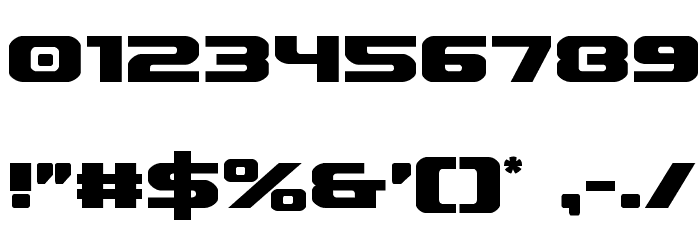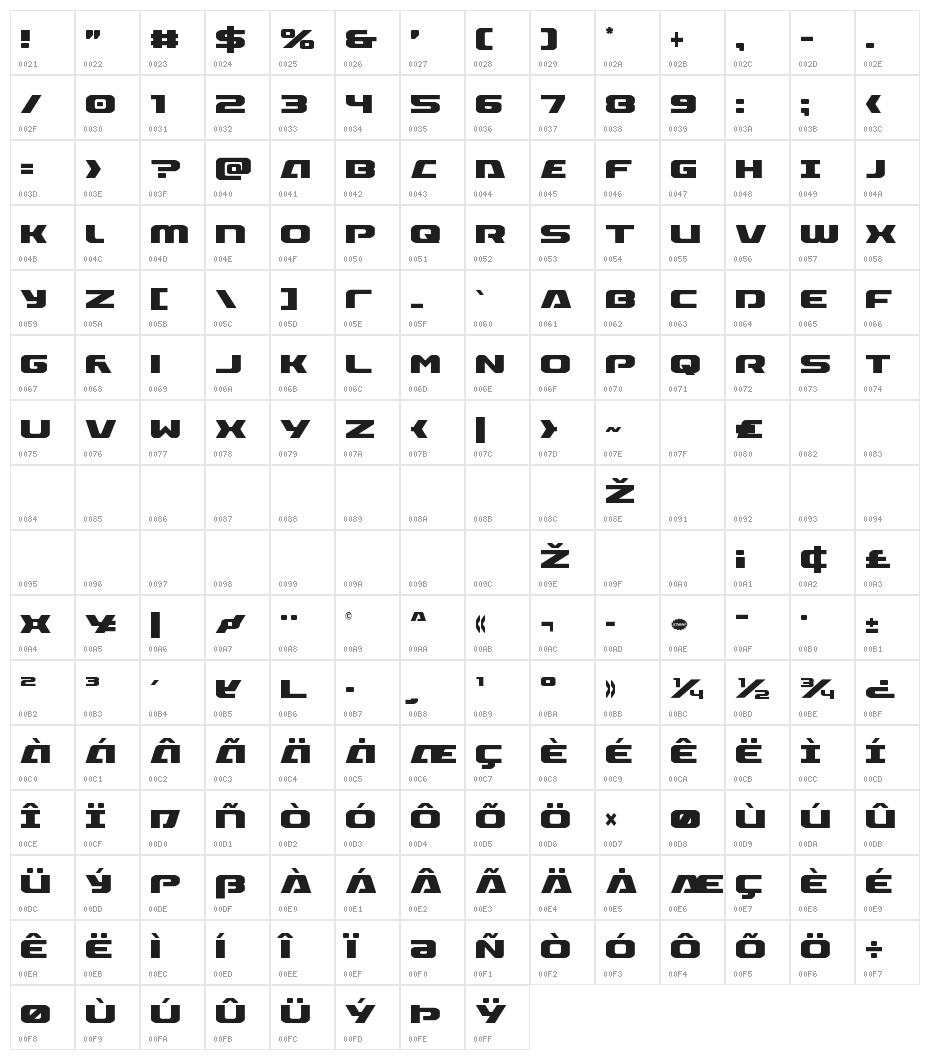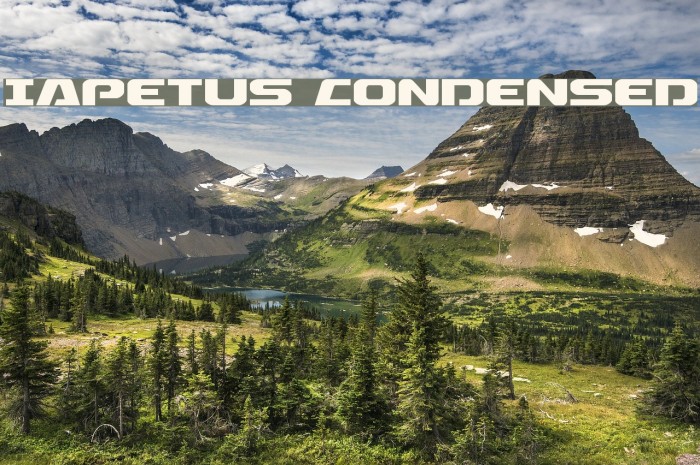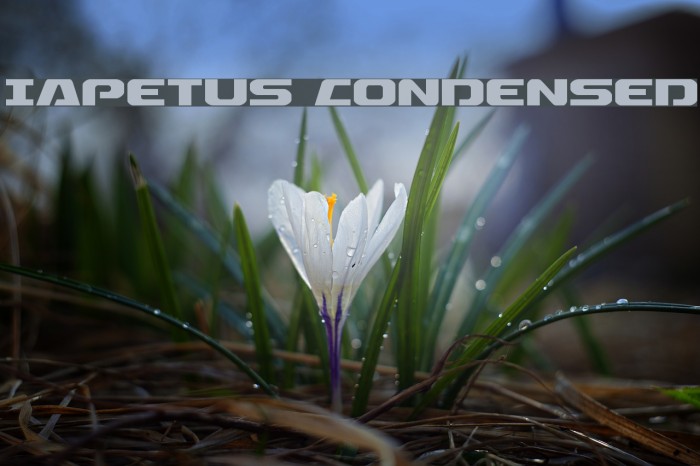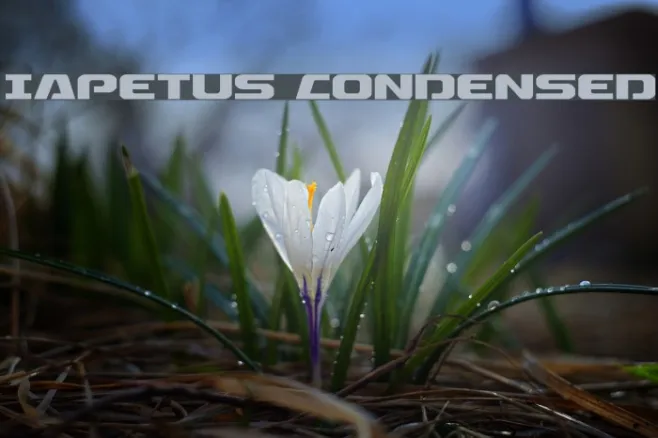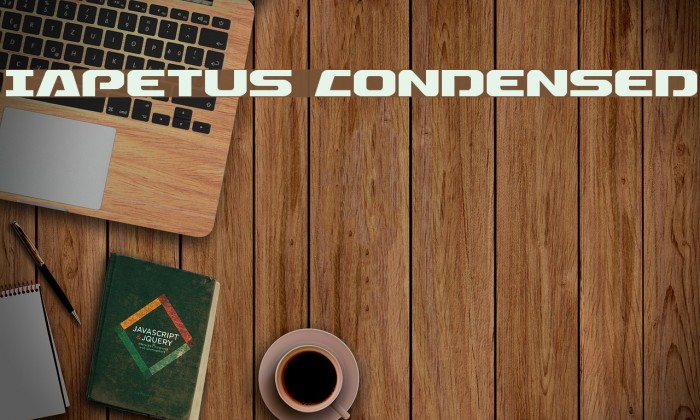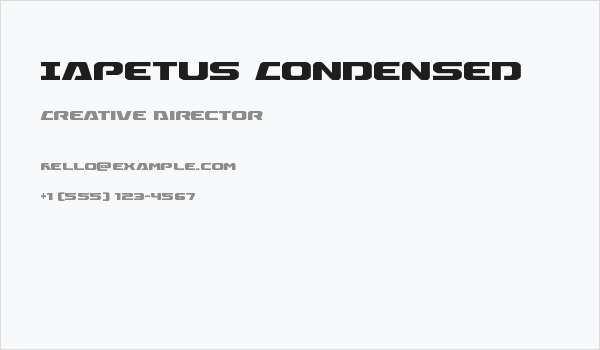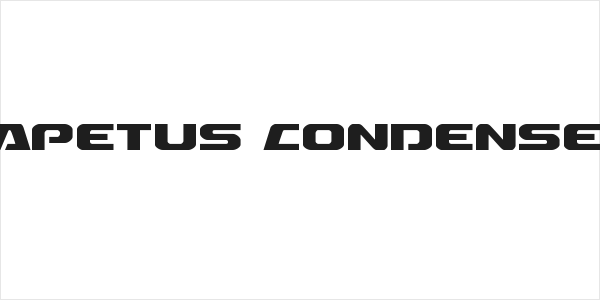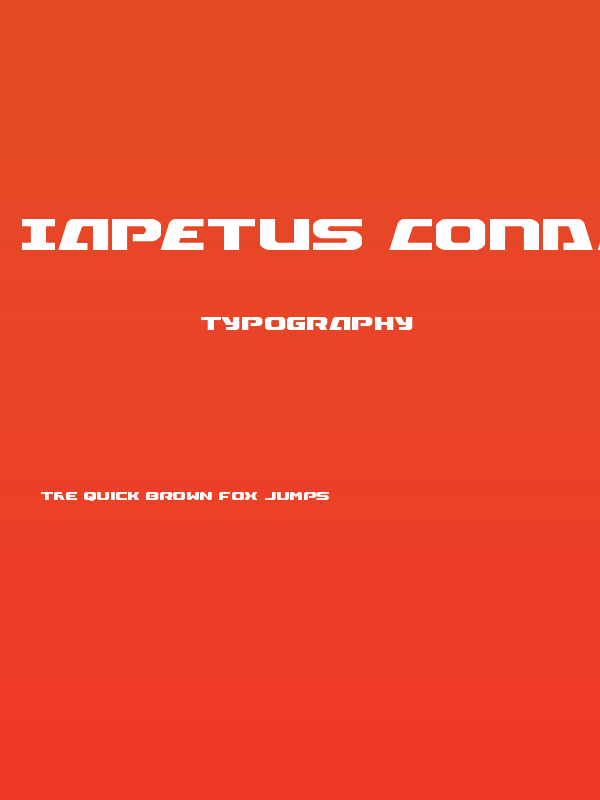
Iapetus Condensed Font
Iapetus Condensed Description
This font features a bold, futuristic design with a condensed structure. The characters are sharply defined with angular cuts and a strong geometric influence, giving it a modern and dynamic appearance. The uppercase letters are particularly striking, with a uniform height and a consistent width that enhances readability. The lowercase letters maintain the same boldness, ensuring a cohesive look across different text sizes. The numerals are equally bold and geometric, fitting seamlessly with the overall style. Special characters are designed with the same attention to detail, making them stand out while maintaining harmony with the rest of the font.
| Proposed Projects | Ideal for sci-fi themed projects, tech branding, video game titles, and futuristic posters. |